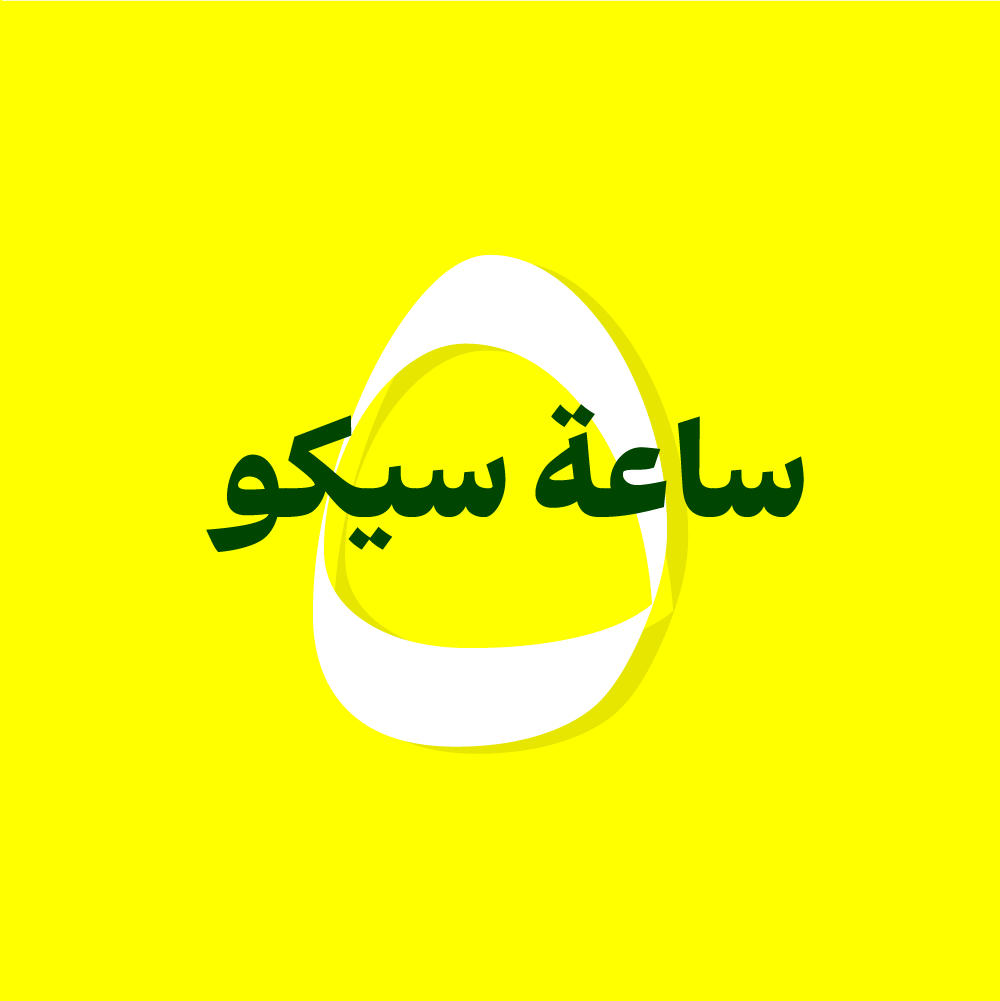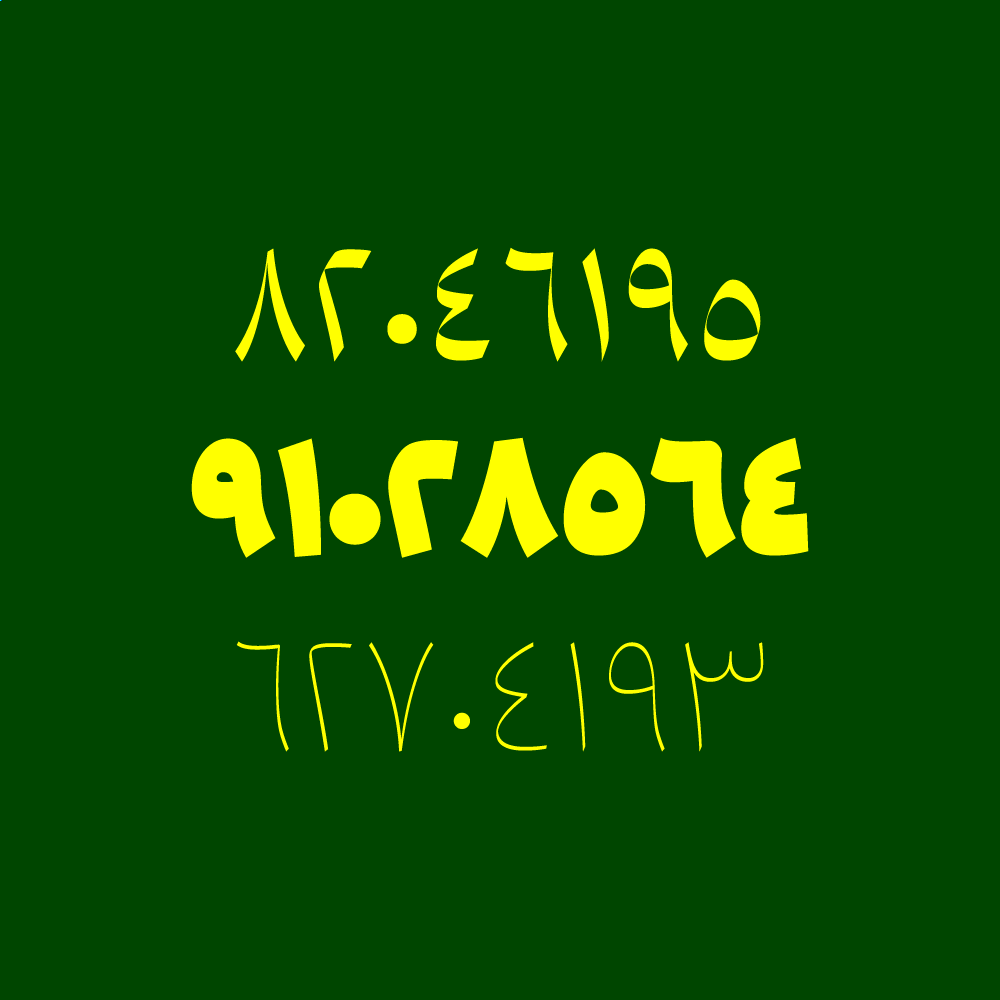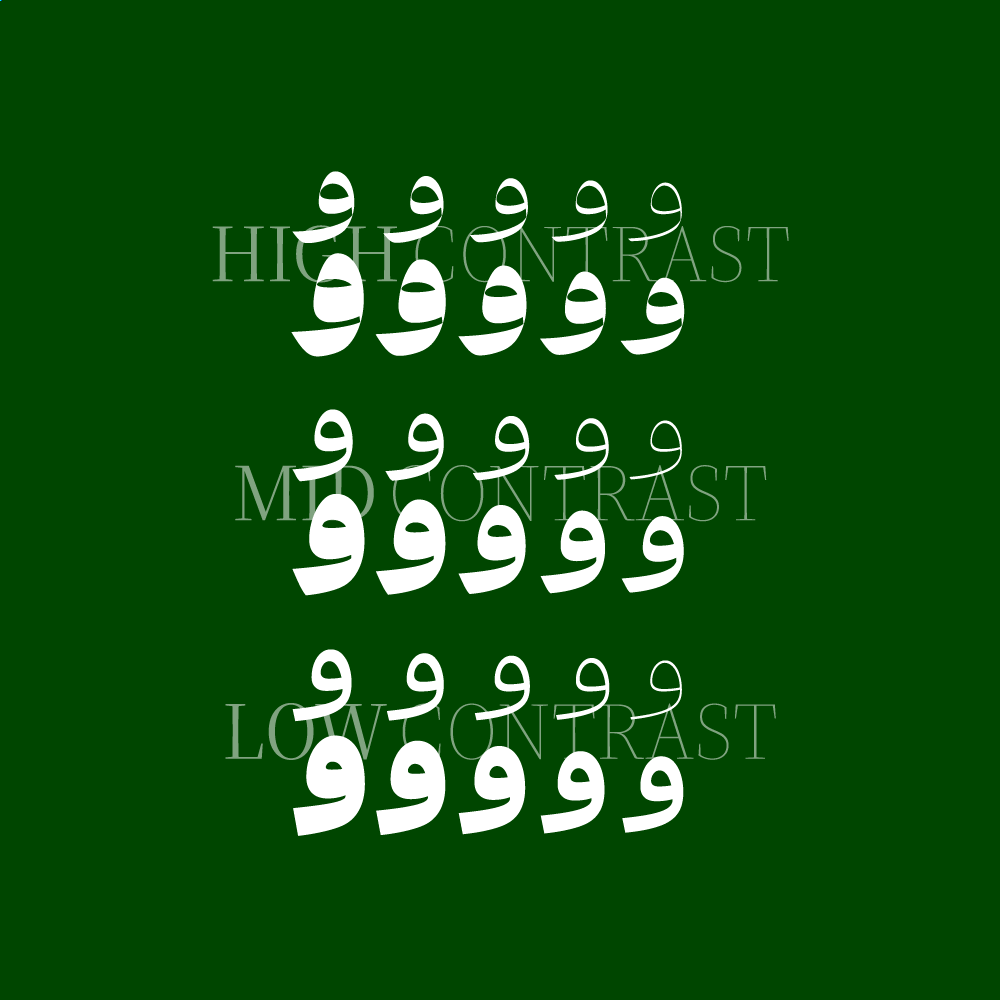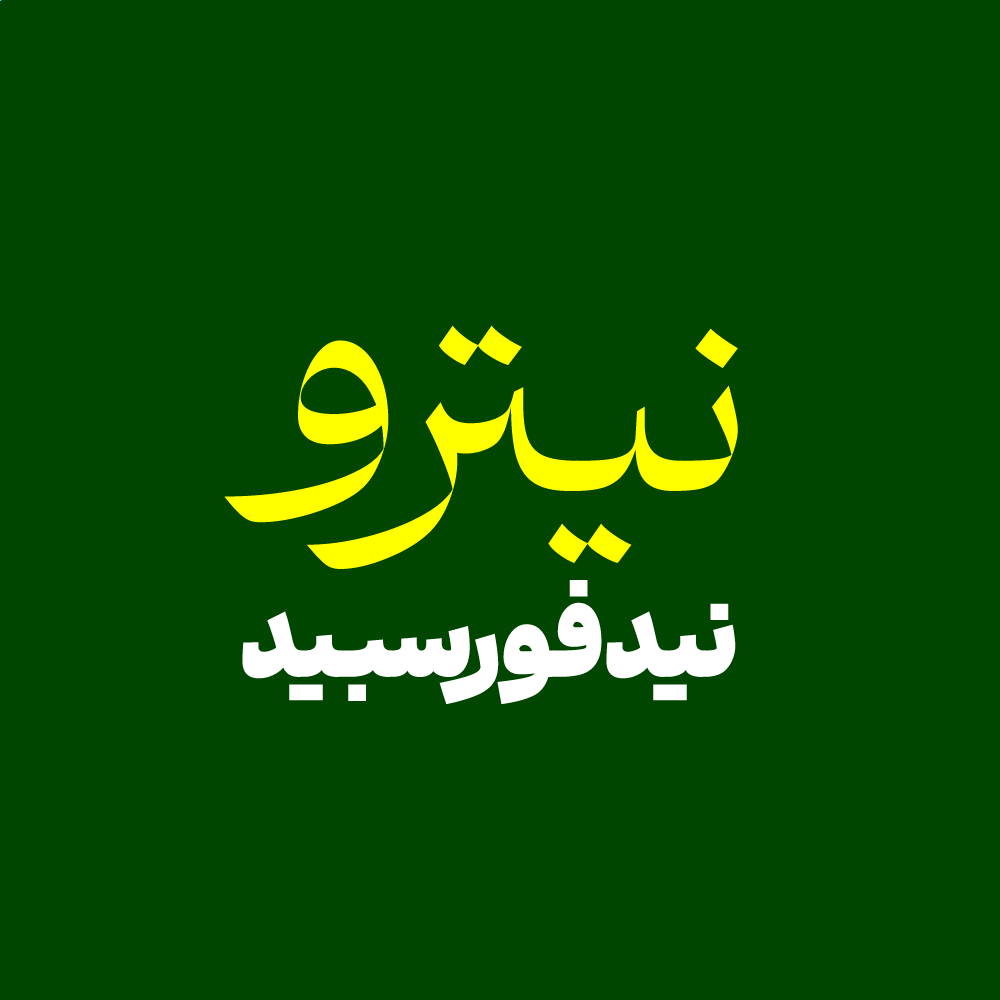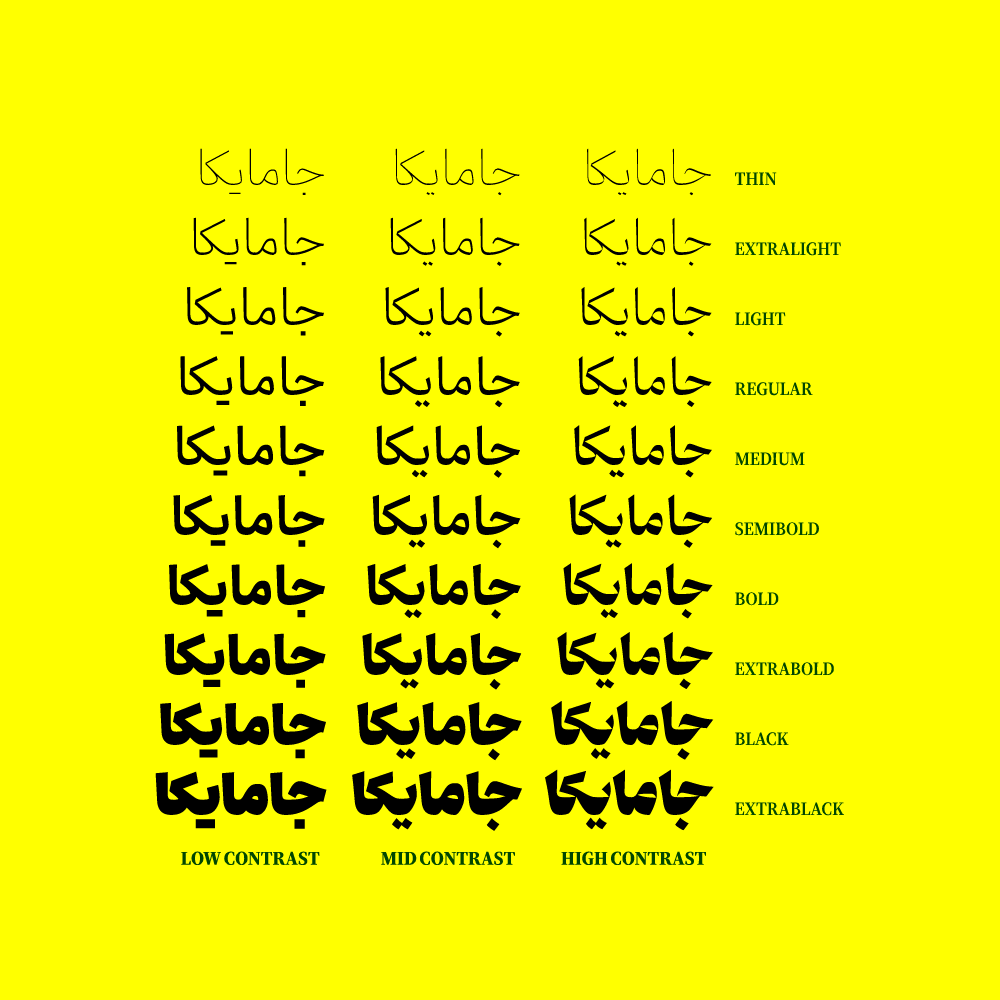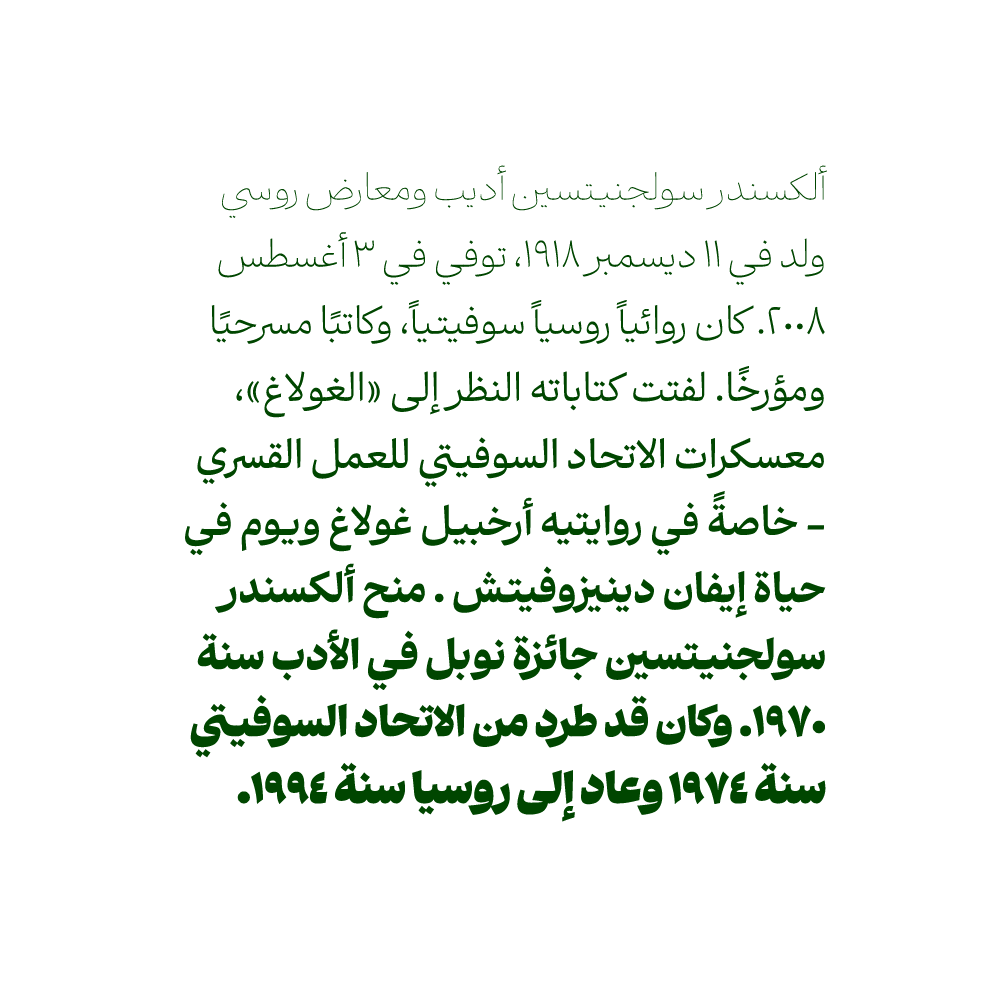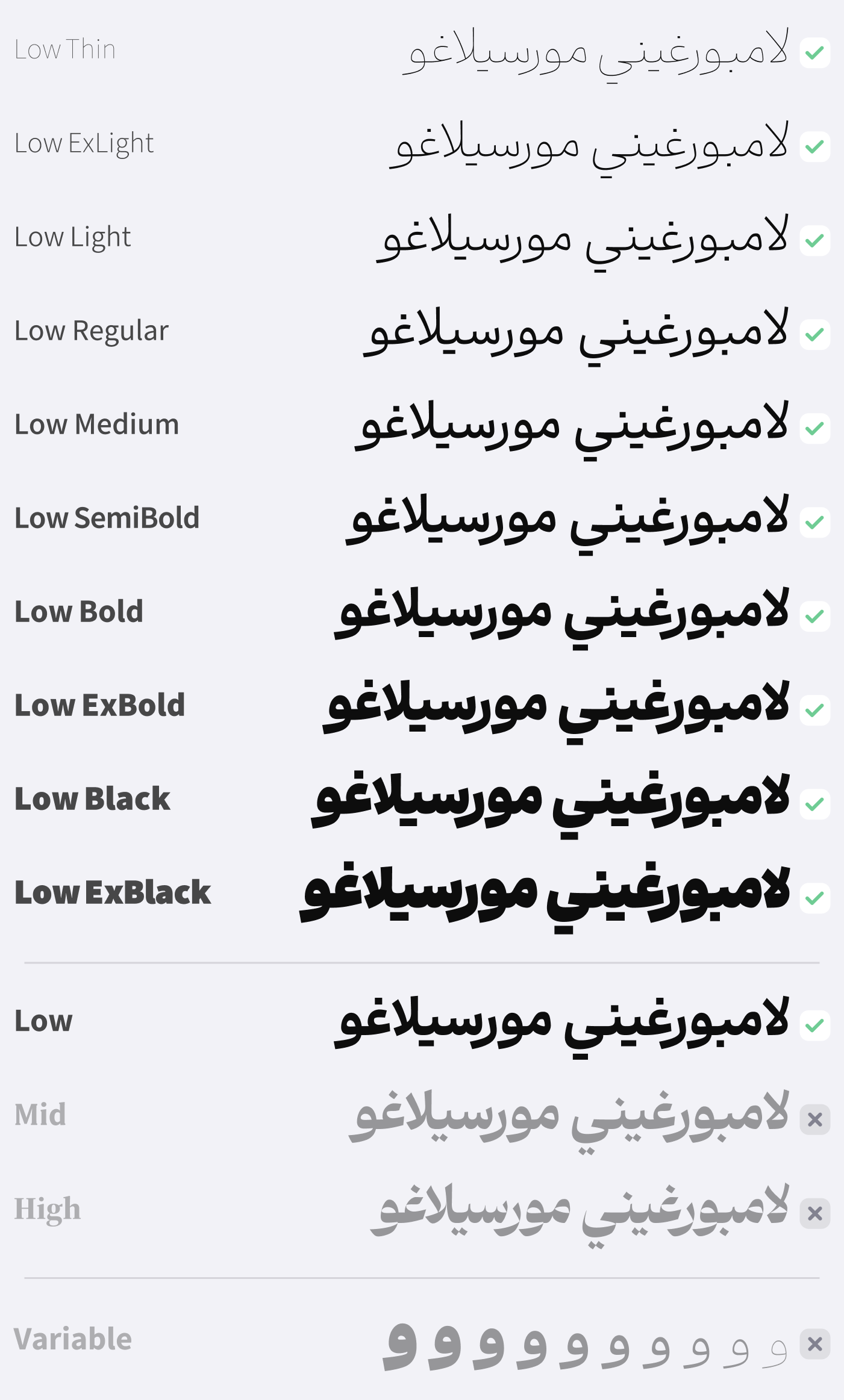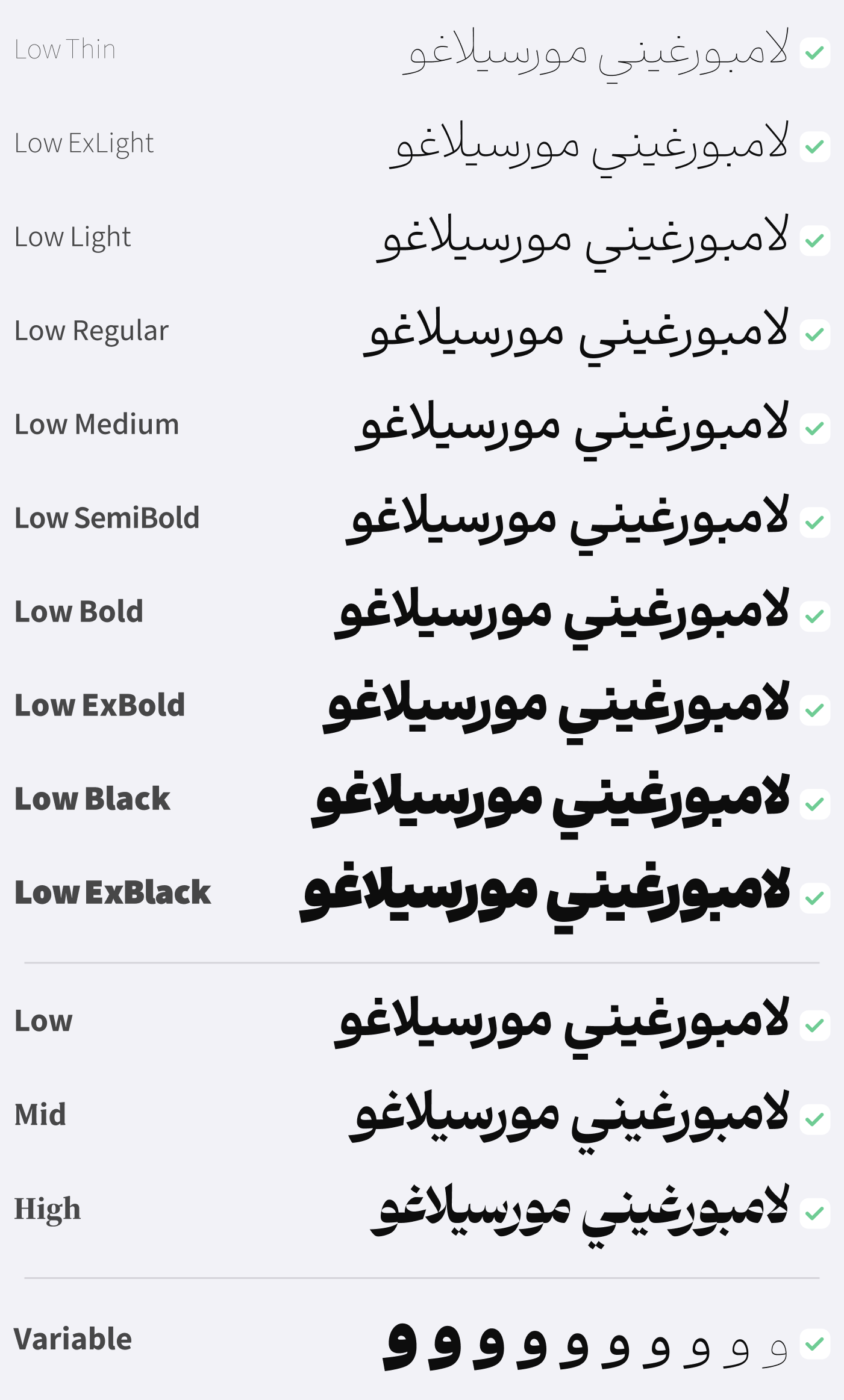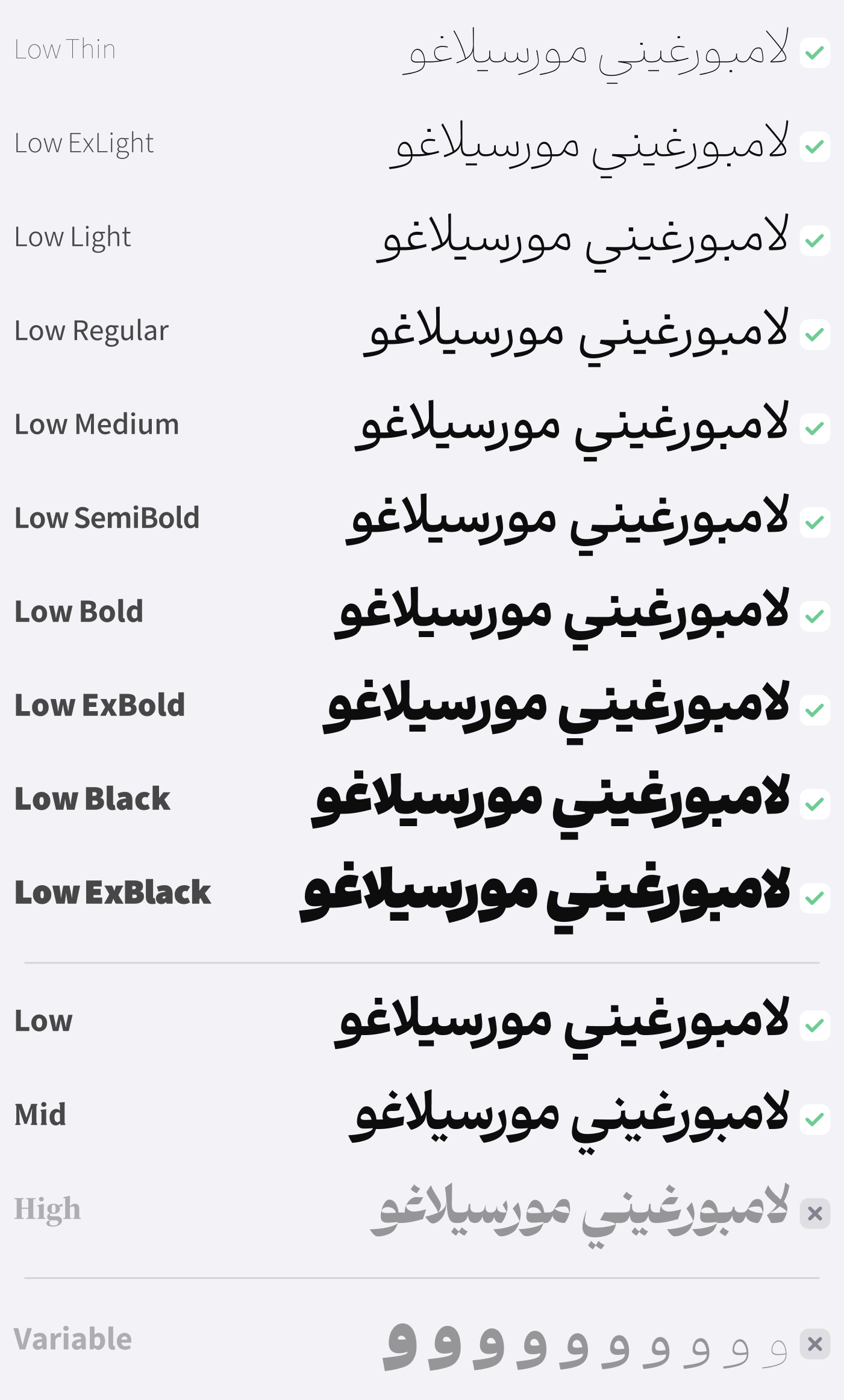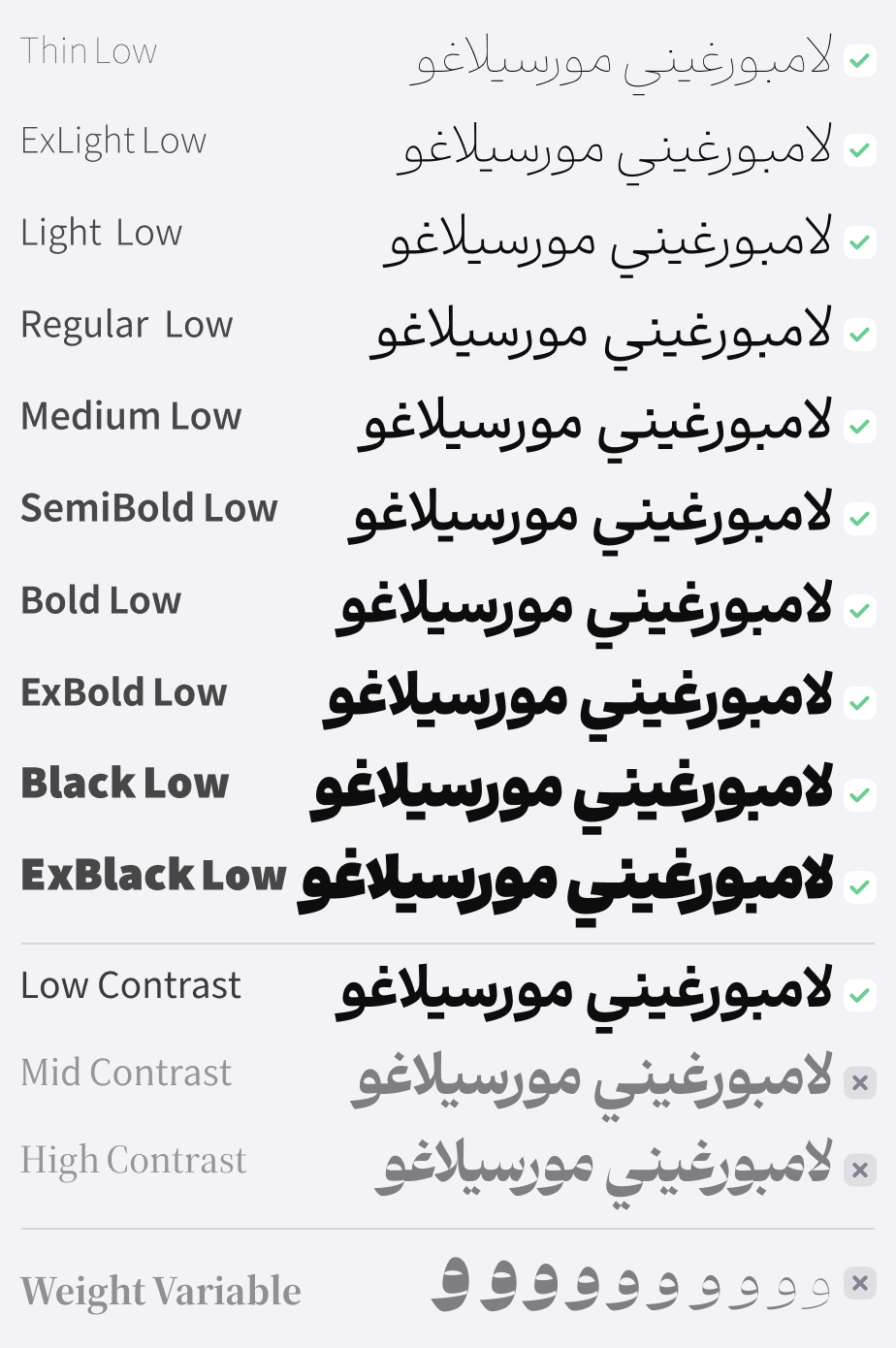
Abar
Weight Variety in Abar Font
Abar comes with 10 weights (Thin, ExtraLight, Light, Regular, Medium, SemiBold, Bold, ExtraBold, Black, ExtraBlack), 3 contrast levels (Low, Mid, High), and a variable font version.
Tabular Numbers
By enabling Tabular Numbers, all numerals will have uniform widths across all weights and languages — ideal for tables and accounting.
Currency Symbols via Stylistic Sets
Enable Stylistic Set 2 to access custom Rial and Toman symbols.
Enable Stylistic Set 3 to access Saudi Riyal and UAE Dirham symbols.
Multilingual Support
Abar supports Persian, English, Arabic, Urdu, Kurdish, and Jawi.
Ligatures & Alternatives
Abar includes ligatures and alternative letterforms that enhance the beauty and rhythm of text.
Vertical Alignment of Symbols
Use Stylistic Set 4 to fine-tune the vertical alignment of numerals, punctuation, and currency signs.
Three Styles, Three Voices
Each optical contrast version of Abar has its own visual identity, allowing you to match typography to context — whether editorial, UI, or headline.